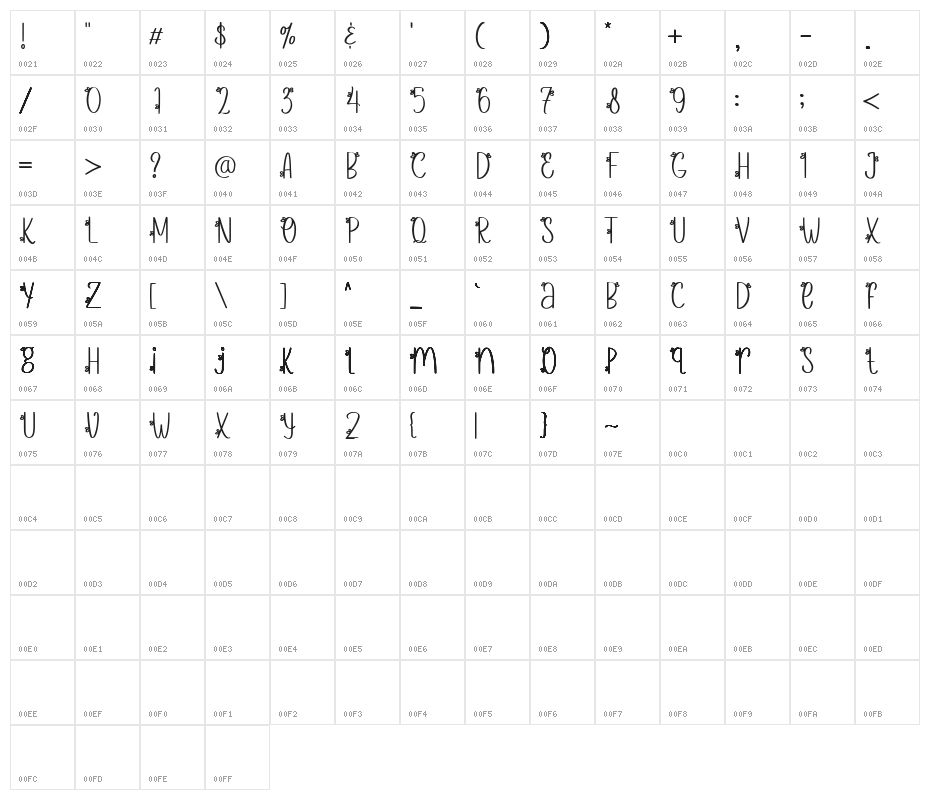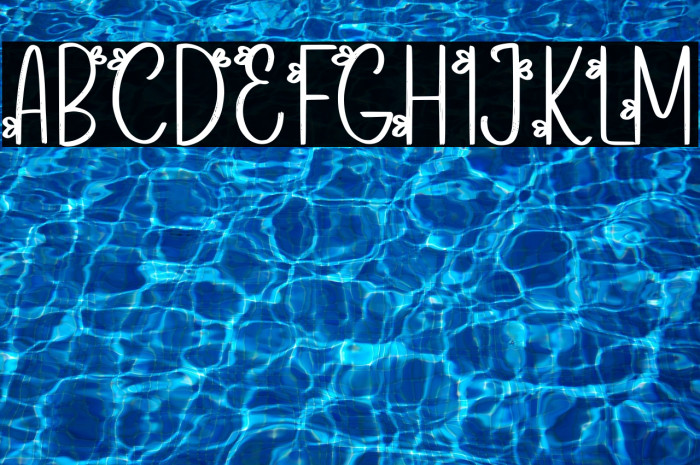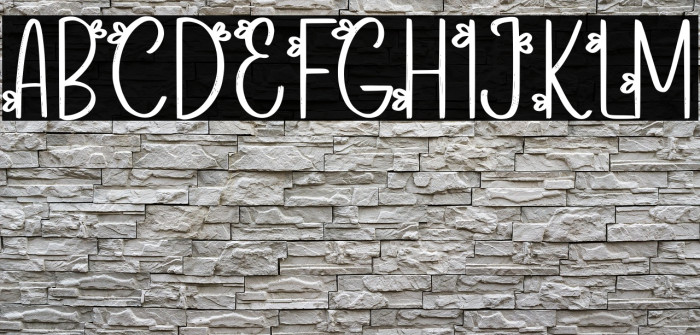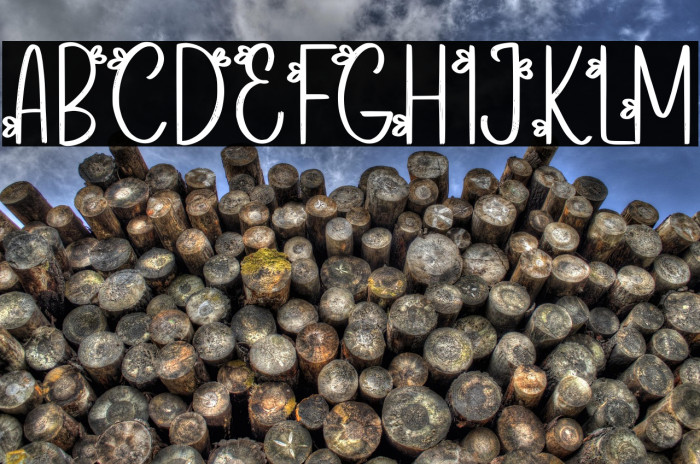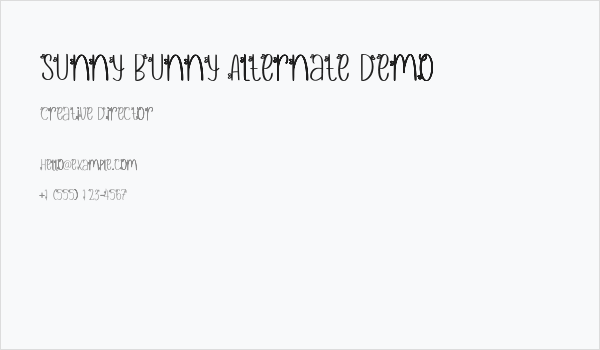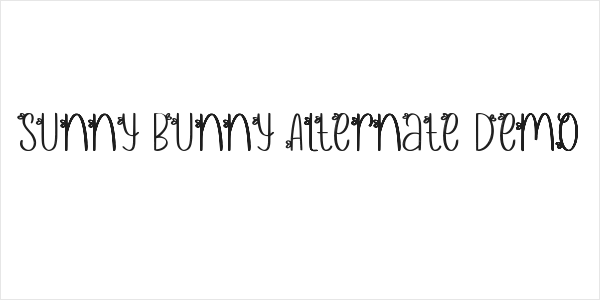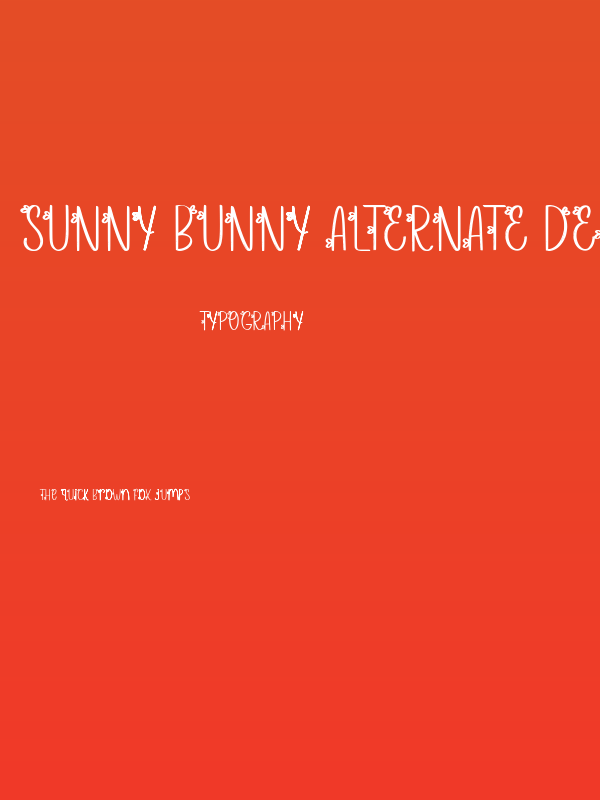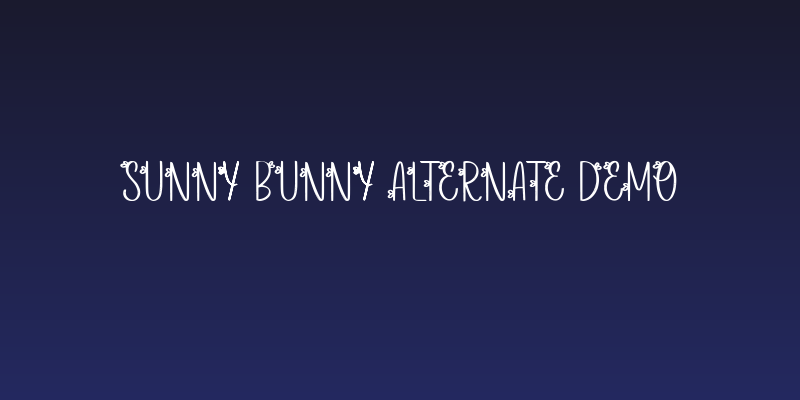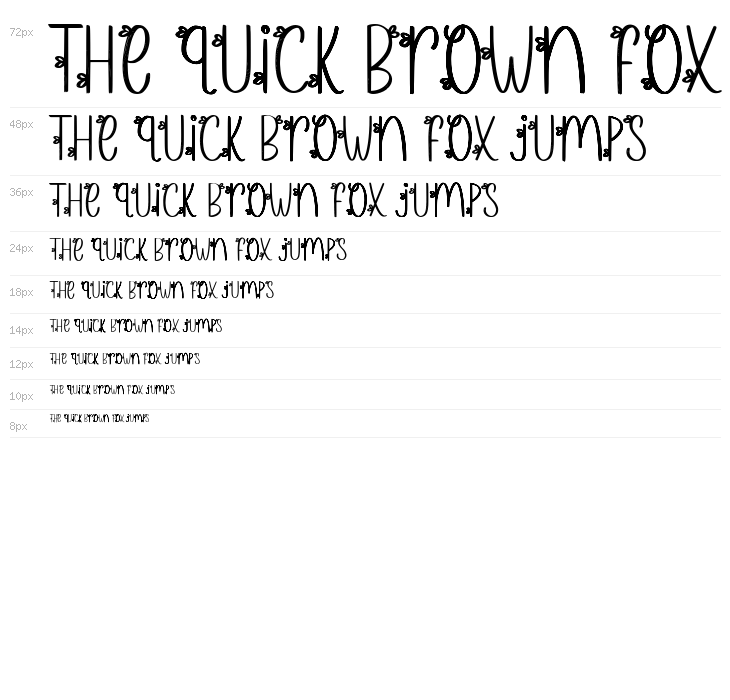
Sunny Bunny Alternate Demo Font
Sunny Bunny Alternate Demo Description
This playful and whimsical font features a unique decorative style with charming curls and loops adorning each character. The letters are tall and slender, giving them an elegant yet fun appearance. The font maintains a consistent stroke width, providing a clean and uniform look. Its distinctive embellishments make it stand out, adding a touch of creativity and flair to any design. The numerals and special characters are equally adorned, ensuring a cohesive aesthetic throughout. This font is perfect for projects that require a lighthearted and artistic touch.
| Use Case | Headlines, Logos, Decorative text |
| Proposed Projects | Ideal for children's book covers, playful invitations, greeting cards, and creative branding projects. |